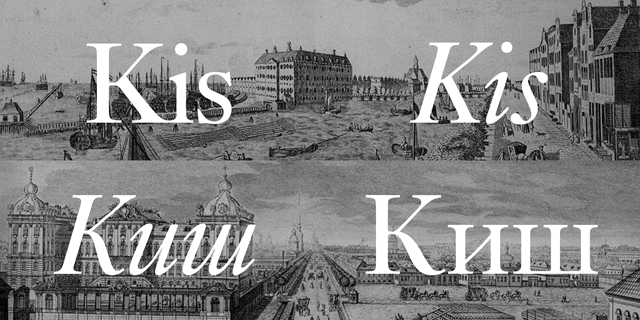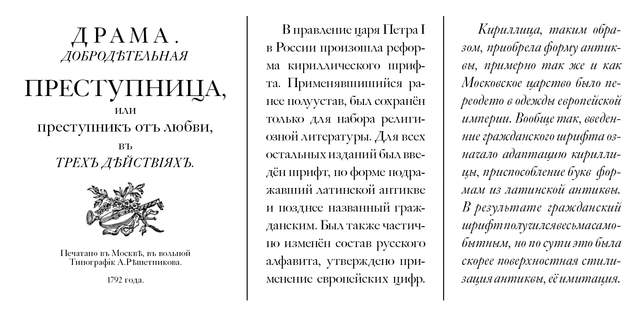
Kis (2 fonts)
About KisThe Bitstream version of Linotype’s Janson. Nicholas Kis (Kis Miklos) was a Hungarian punchcutter who worked in Amsterdam. His types are some of the greatest in the Dutch old face style, they have been used as models for a number of developments of that century. The Linotype version of this style, Janson, was created by Chaunsey H.Griffith in 1937 and based on an original face cut by Kis in 1670-90. The face is named after Anton Janson, a Dutchman who worked in Leipzig, with whom the face has no connection. The typeface is used for text setting. Cyrillic version was developed at ParaType in 2001 by Vladimir Yefimov.